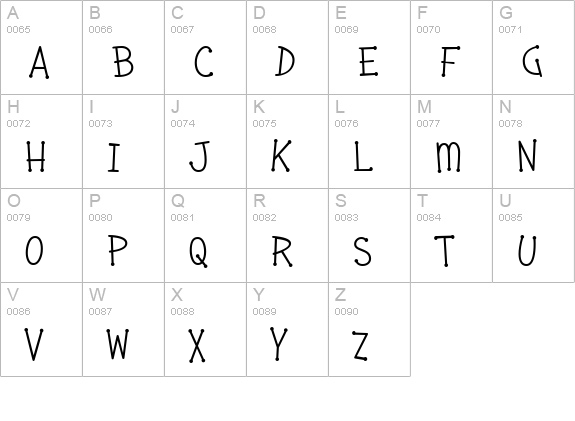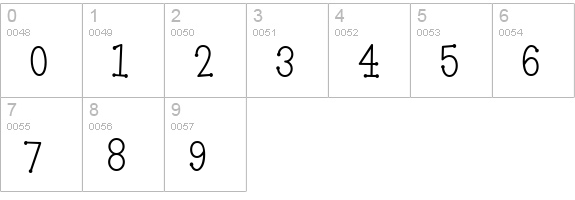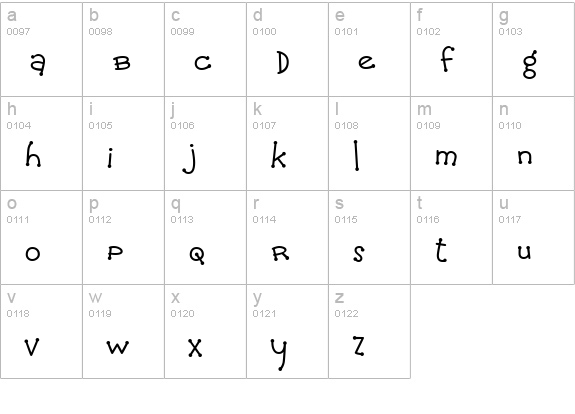
Crazy Girlz Blond BTN is a whimsical and playful font that exudes fun and creativity. With its unique design and energetic flair, this font is perfect for adding a touch of personality to any project. The flowing lines and bold strokes of Crazy Girlz Blond BTN make it stand out and grab attention, making it ideal for headlines, logos, and other eye-catching designs. Whether you're looking to add a touch of quirkiness to your projects or simply want to inject some fun into your designs, Crazy Girlz Blond BTN is the perfect choice. And the best part? It's completely free to download at FontsMarket.com! So go ahead and give your projects a dose of fun and creativity with Crazy Girlz Blond BTN.